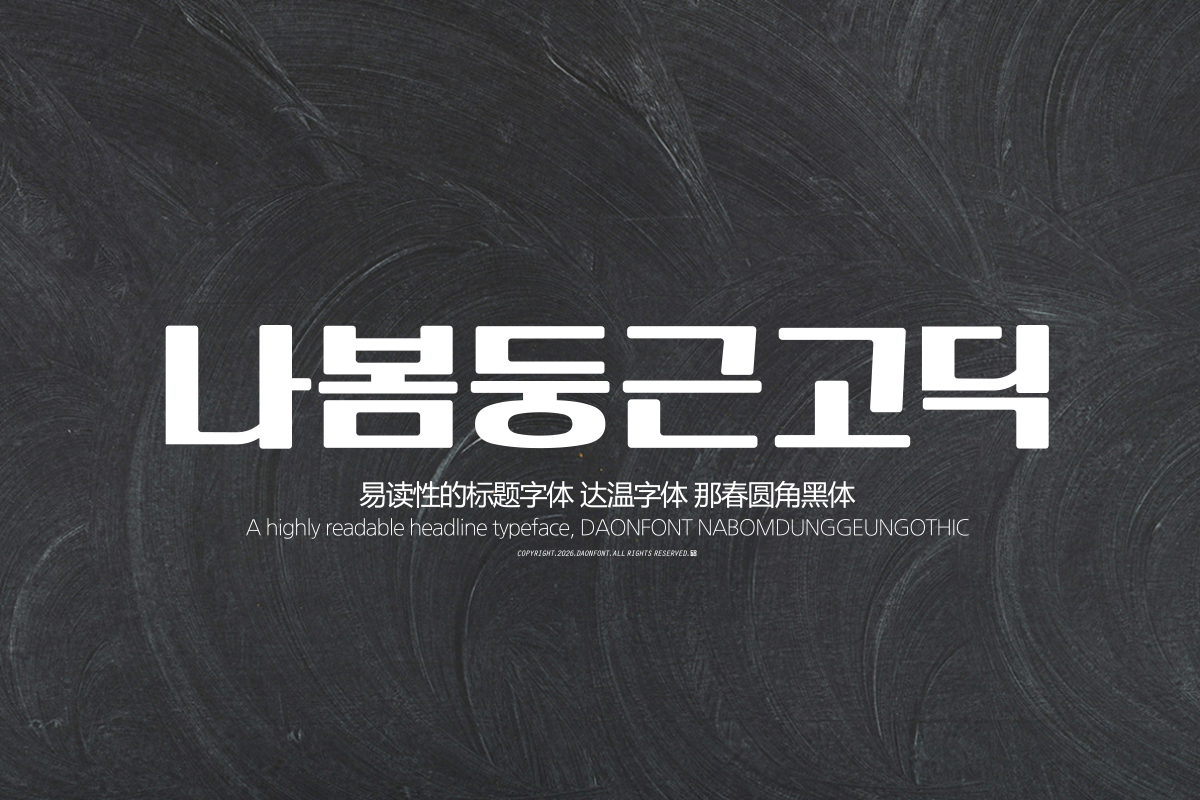
DAON NABOMDUNGGEUNGOTHIC
'NABOMDUNGGEUN GOTHIC' is a Hangul typeface designed for headlines with consistent spacing. It was created with a structure focused on enhancing readability for titles, maintaining clear and stable readability even in small text.